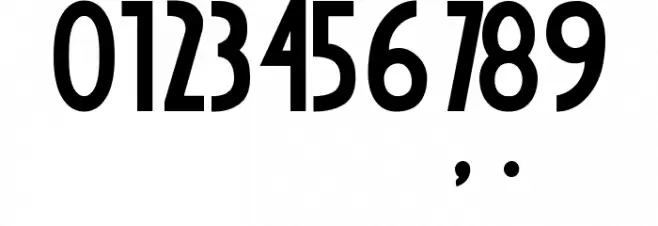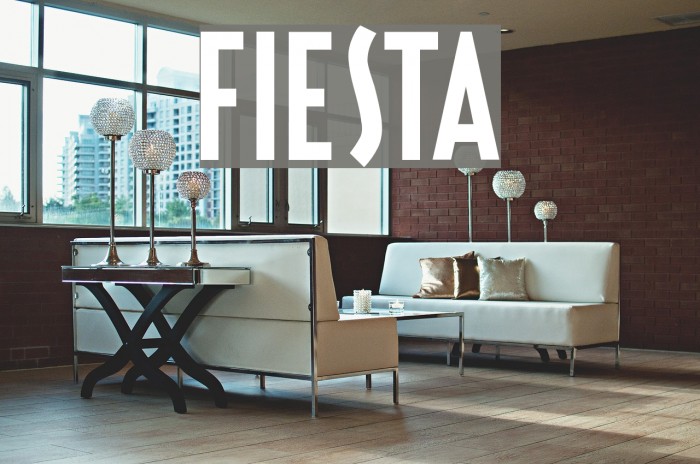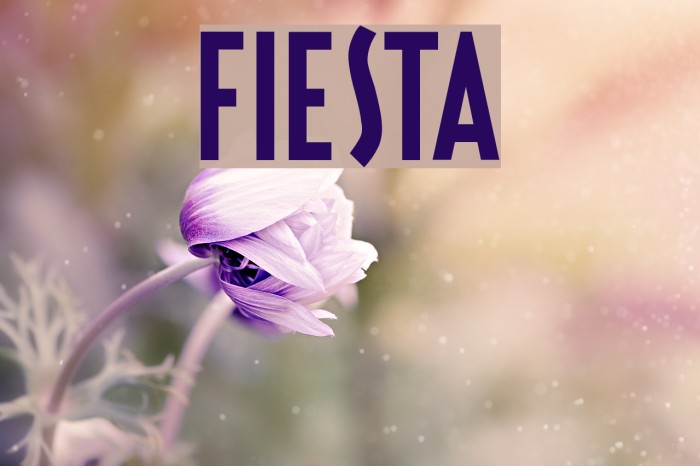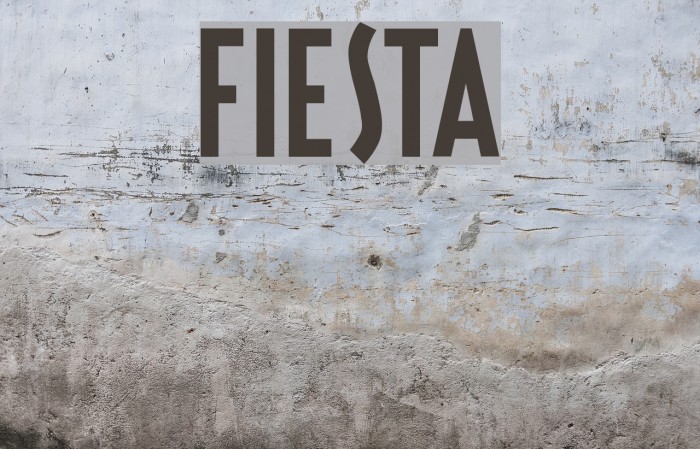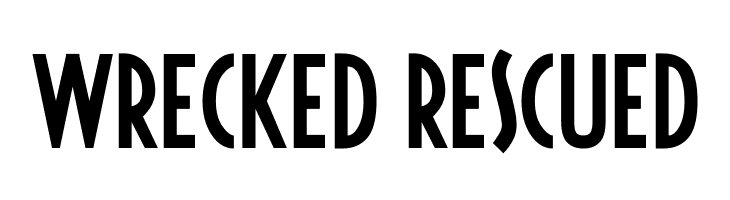
Fiesta Font
Fiesta Description
This font features a bold and striking design with clean, sharp lines and a modern aesthetic. The characters are uniformly thick, creating a strong visual impact. The uppercase letters are tall and commanding, while the lowercase letters maintain a consistent style that complements the uppercase. The numerals are clear and legible, matching the overall boldness of the alphabet. The font's design is versatile, suitable for both digital and print media. Its geometric shapes and even stroke widths give it a contemporary feel, making it ideal for projects that require a modern and professional look.
A bold, modern font with clean lines and geometric shapes from Retro fonts.
- Proposed Projects: Ideal for branding, advertising, headlines, and digital media projects.
- Use Case: Headlines, Logos, Branding